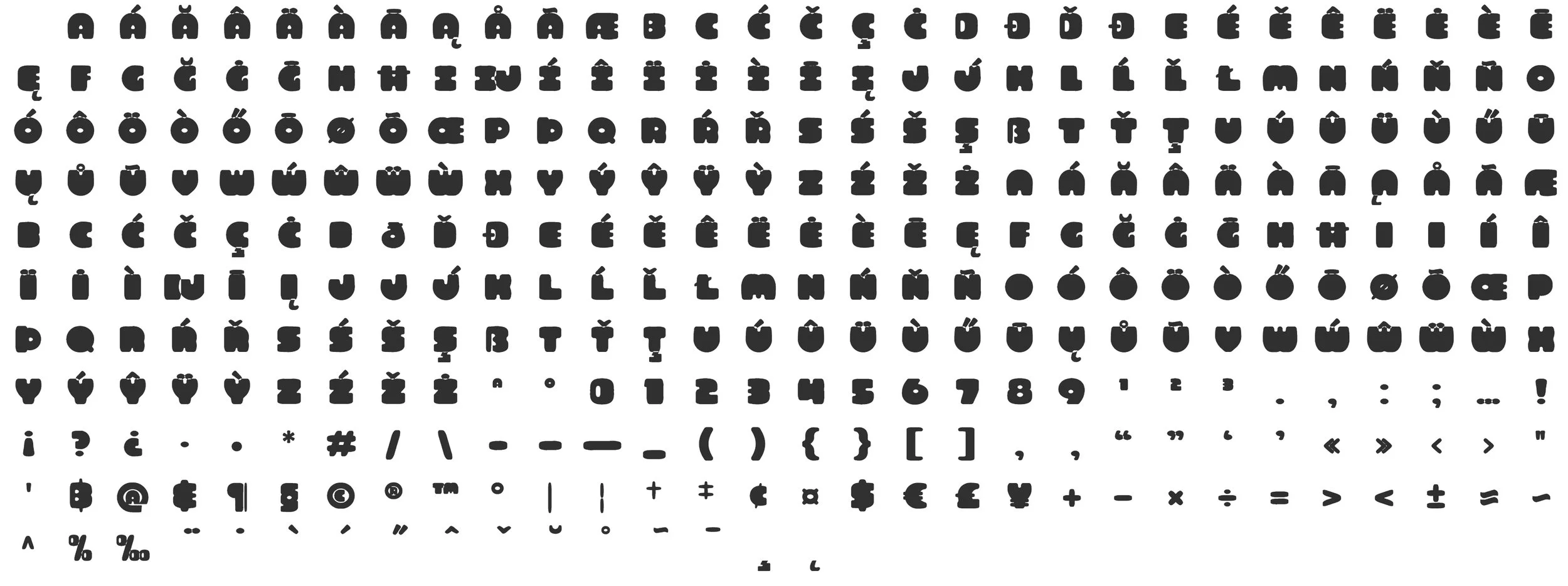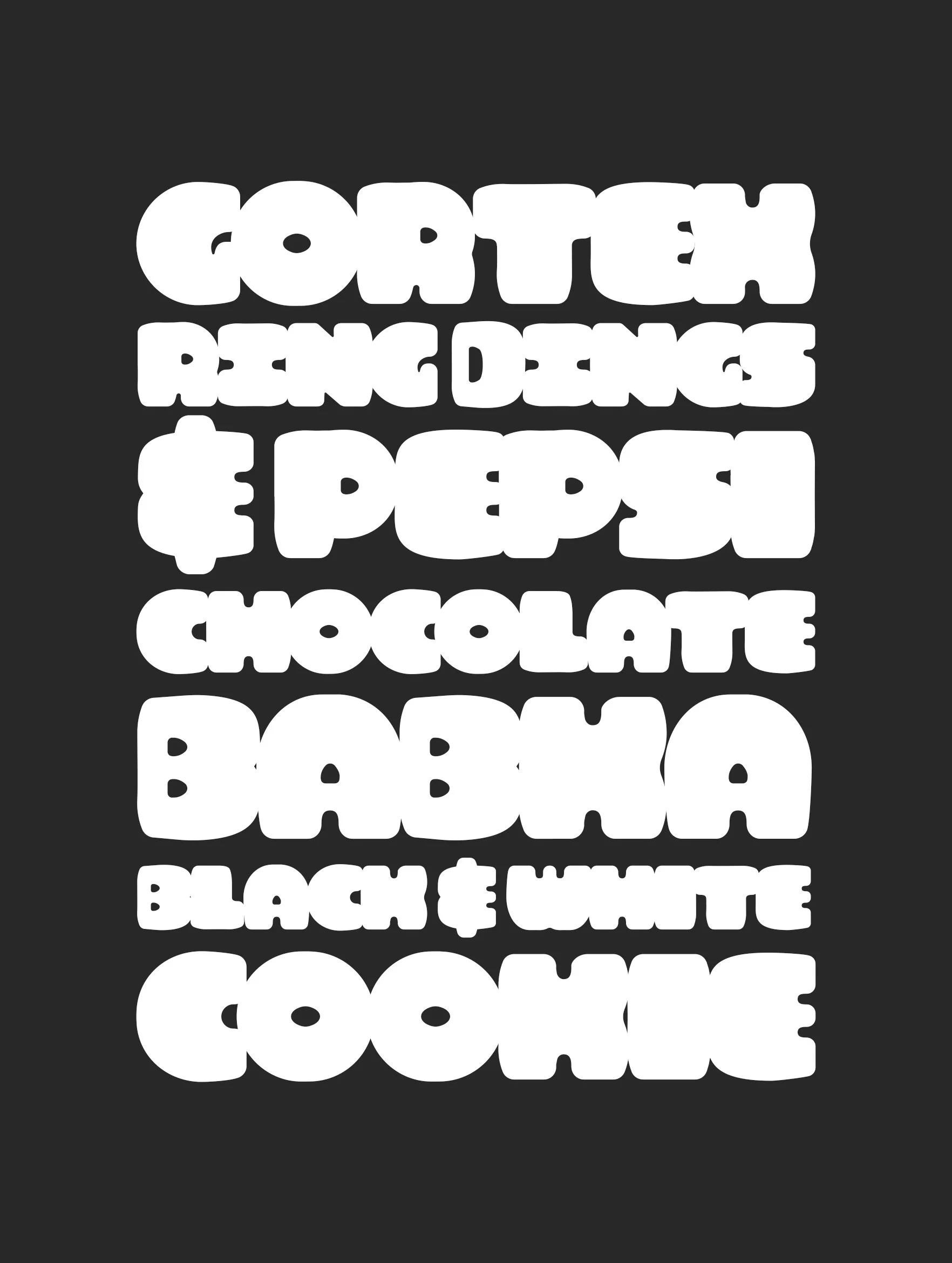
Chub
Say hey to CHUB, the FontFace that’s thick, bold, and unapologetically full-figured. She’s got curves for days, rocking every line and loop with the confidence of a queen who knows she owns the room. This FontFace doesn’t squeeze into skinny trends—she breaks the mold and celebrates every inch with a style that’s big, beautiful, and impossible to ignore. From playful logos to loud headlines, CHUB brings the boldness, proving that thicker is definitely better. Go ahead, embrace the curves and let CHUB show off in your next design! Alright already buy me and get designing…
300+ Glyphs
Multilingual
Stylistic Alternates &